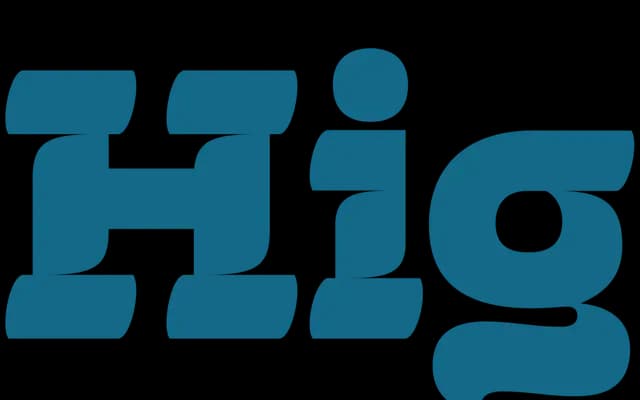
DT Robusta
Death of Typography · Chua Khai Xin
A single-weight bold slab serif drawn from Singapore's kopi gu you coffee culture, with inktraps referencing the tarik pulling action and curved slab serifs evoking melting butter.
Designed by Chua Khai Xin under Death of Typography's Font Incubation Programme, the typeface translates the visual language of Singapore's Hainanese butter coffee tradition into letterforms. Sturdy slabs with softened edges and sharp-tipped curves create a tension between robustness and warmth, reflecting the contrast of bitter Robusta beans roasted with margarine and sugar. Available in a single commercial weight, it suits display and branding work where cultural specificity is an asset.
Explicitly described as a bold slab serif; the design features sturdy slabs with curved edges and inktraps, placing it firmly within the slab serif category.